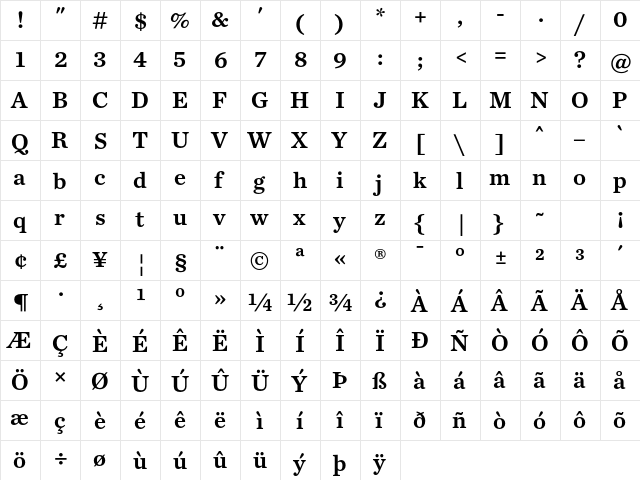
Chronicle Text G4 Semibold Font Preview
Chronicle Text G4 Semibold
Chronicle Text G4 Semibold Font Details
| Foundry | Hoefler & Frere-Jones |
| Designer | Hoefler & Frere-Jones |
Design Context for Chronicle Text G4 Typeface
Chronicle Text G4 takes a measured approach to typography — its balanced proportions and neutral character make it a reliable workhorse for both digital and print work. The heavy weight commands attention and anchors typographic hierarchies.